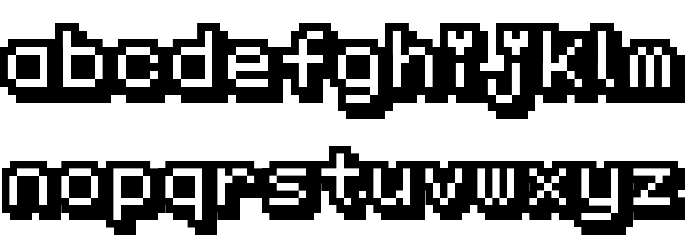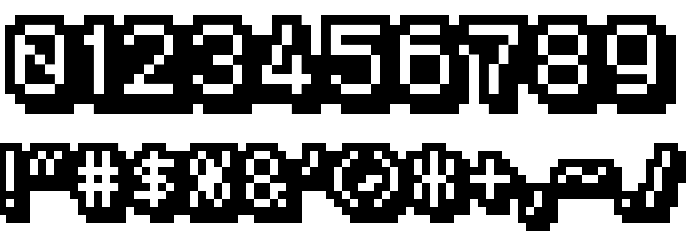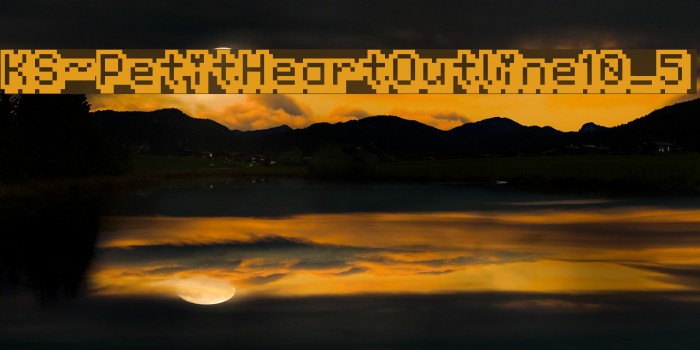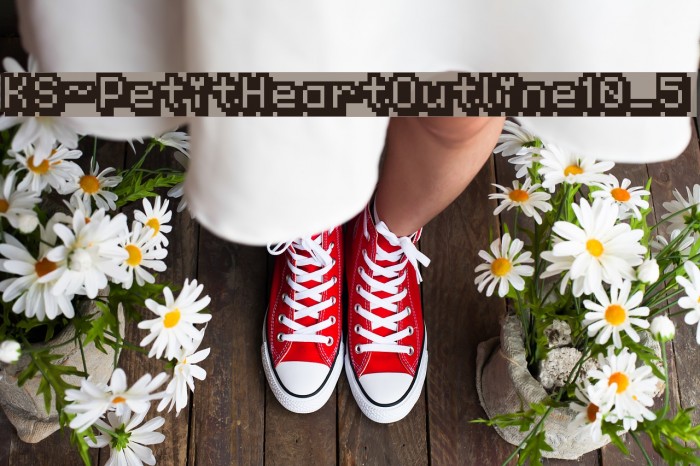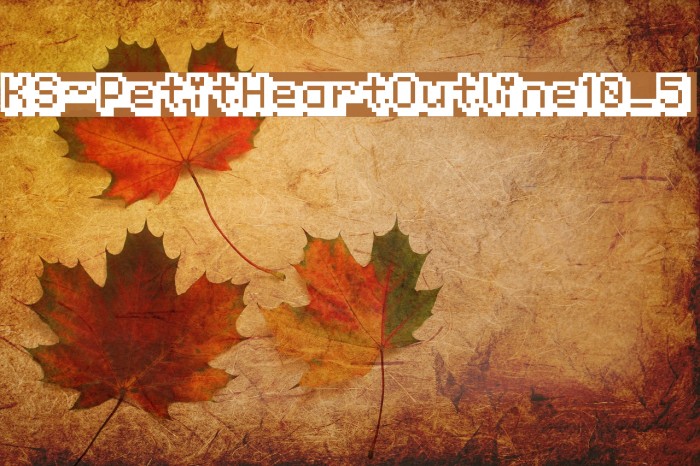
KS-PetitHeartOutline10_5 Font
This font features a bold, pixelated outline style that gives it a distinct, retro digital appearance. Each character is composed of a series of square blocks, creating a chunky and playful aesthetic reminiscent of early video game graphics. The uppercase and lowercase letters maintain consistent proportions, while the numerals and special characters are designed to match the overall blocky theme. The font's unique outline adds depth and dimension, making it stand out in any design. Its geometric structure ensures clarity and readability, even at smaller sizes.
A bold, pixelated outline font with a retro digital aesthetic.
- Proposed Projects: Ideal for video game designs, retro-themed posters, digital art projects, and playful branding.
- Overall Style: Retro, Digital